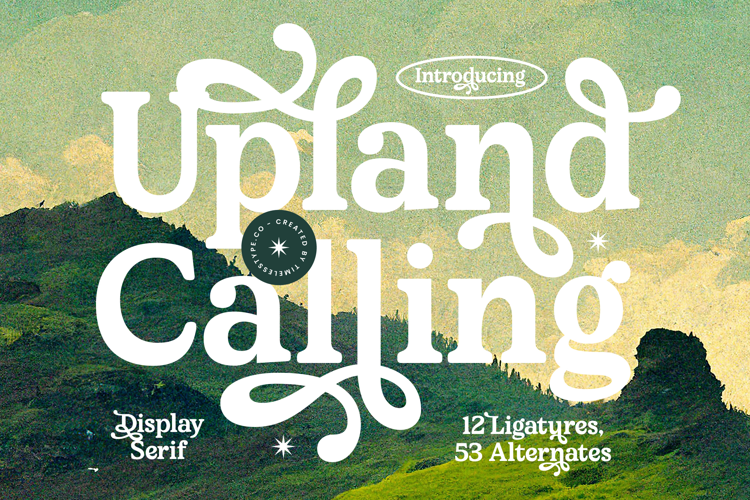
Upland Calling - Display Serif Font
Upland Calling
Upland Calling Italic
Upland Calling - Display Serif Font
Upland Calling is a display serif font that combines bold structure with decorative charm, perfect for designs that need both strength and elegance. With its chunky letterforms, playful swashes, and expressive details, this typeface delivers a retro yet modern feel, making it stand out in creative projects. Featuring 12 ligatures and 53 alternates, Upland Calling allows designers to explore countless variations, ensuring typography feels fresh, dynamic, and full of personality.
This font is crafted to excel in headline typography, where its bold forms and stylish alternates capture attention instantly across posters, banners, and editorial spreads. In branding and logo design, Upland Calling communicates confidence and creativity, making it an excellent choice for lifestyle brands, artisanal businesses, and creative studios looking for a memorable identity. Its decorative details also shine in packaging design, particularly for food, beverages, and handmade goods, where expressive typography enhances visual appeal.